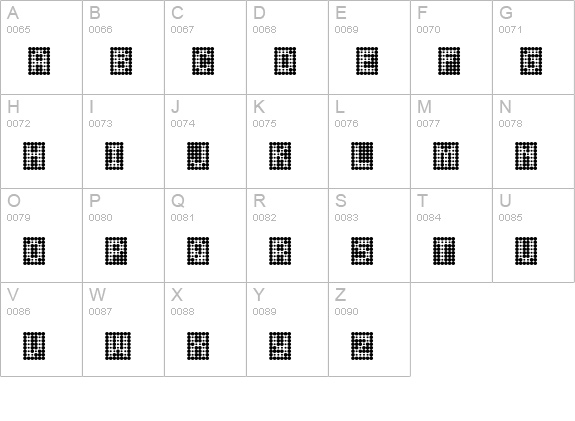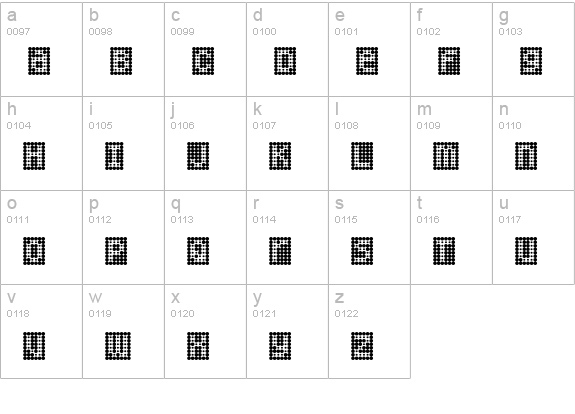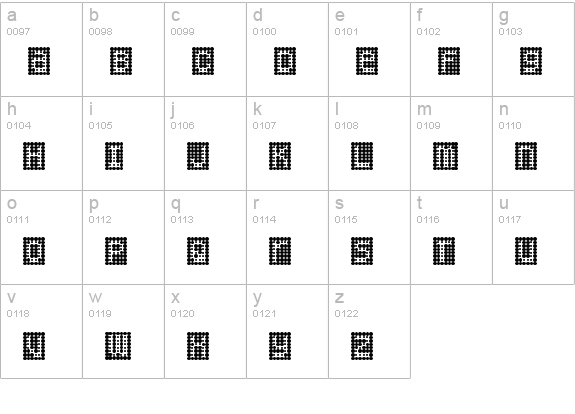
Peppered BTN Negative Font Details
Peppered BTN Negative font is a bold and eye-catching typeface that exudes a sense of edginess and sophistication. Its unique design features sharp, angular edges and a peppered effect, adding a touch of intrigue and modernity to any design project. This font is perfect for those seeking to make a statement with their typography. Whether it's for a logo, headline, or poster, Peppered BTN Negative font will command attention and leave a lasting impression. Its strong and dynamic appearance is sure to captivate viewers and add a contemporary flair to any layout. What's even better is that Peppered BTN Negative font is available for free download at FontsMarket.com. You can easily access this amazing font and incorporate it into your designs without any cost. This makes it an ideal choice for designers and creatives looking to enhance their projects without breaking the bank. With Peppered BTN Negative font, you can unleash your creativity and experiment with bold and impactful typography. Its versatility allows it to be used in a wide range of design applications, from branding to advertising to digital media. The possibilities are endless. So why wait? Grab the opportunity to freely download Peppered BTN Negative font at FontsMarket.com and elevate your designs to new heights. Let this font be the missing puzzle piece that completes your visual masterpiece.